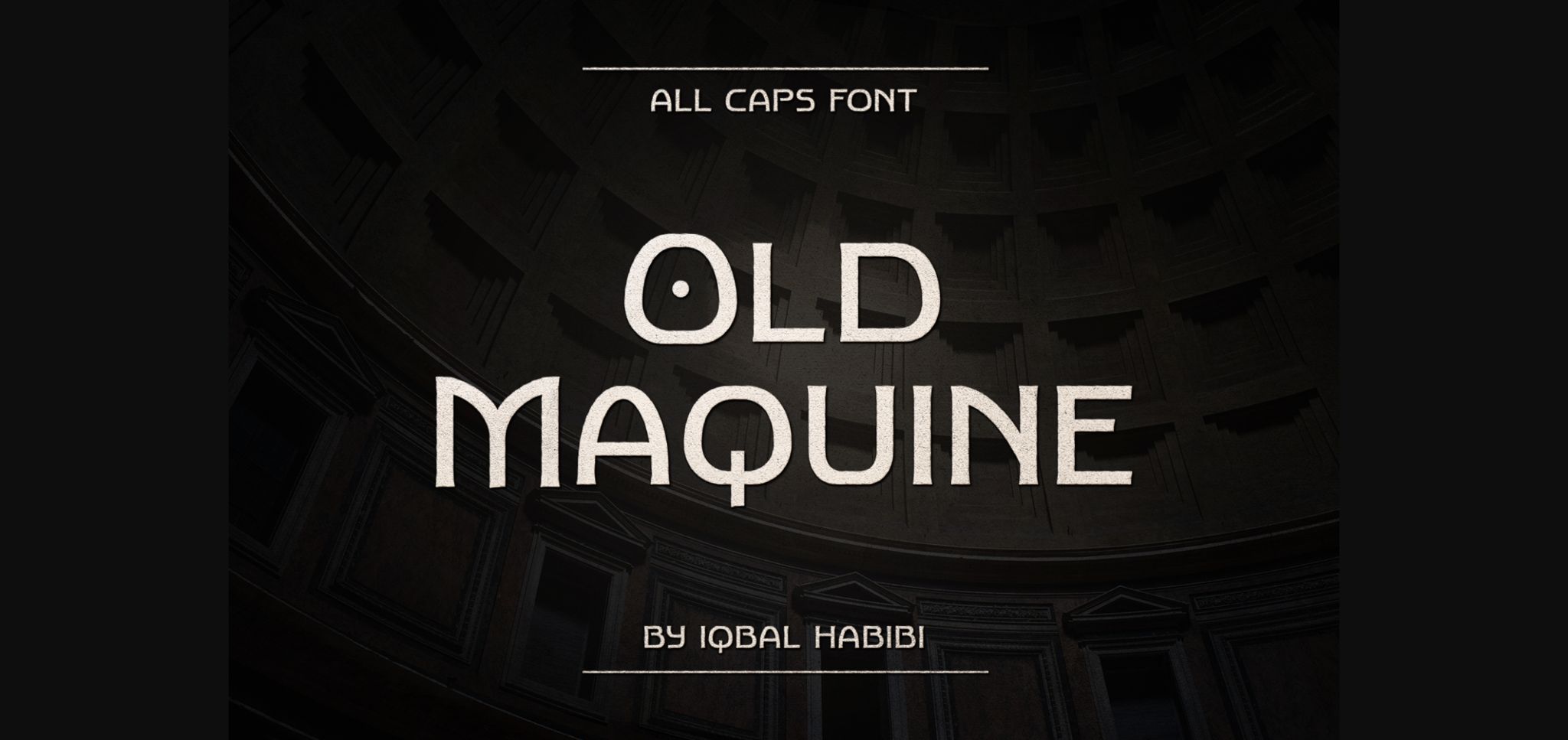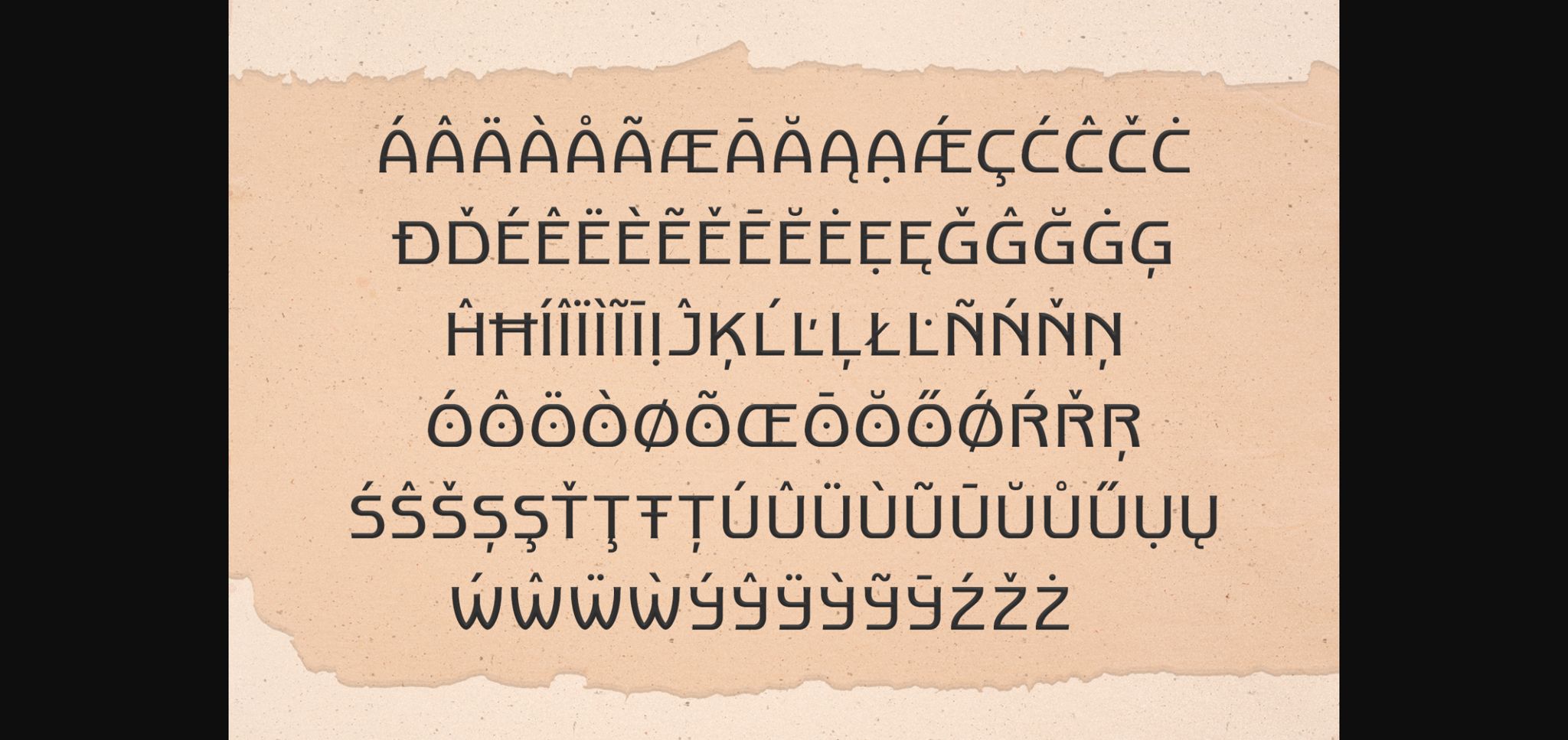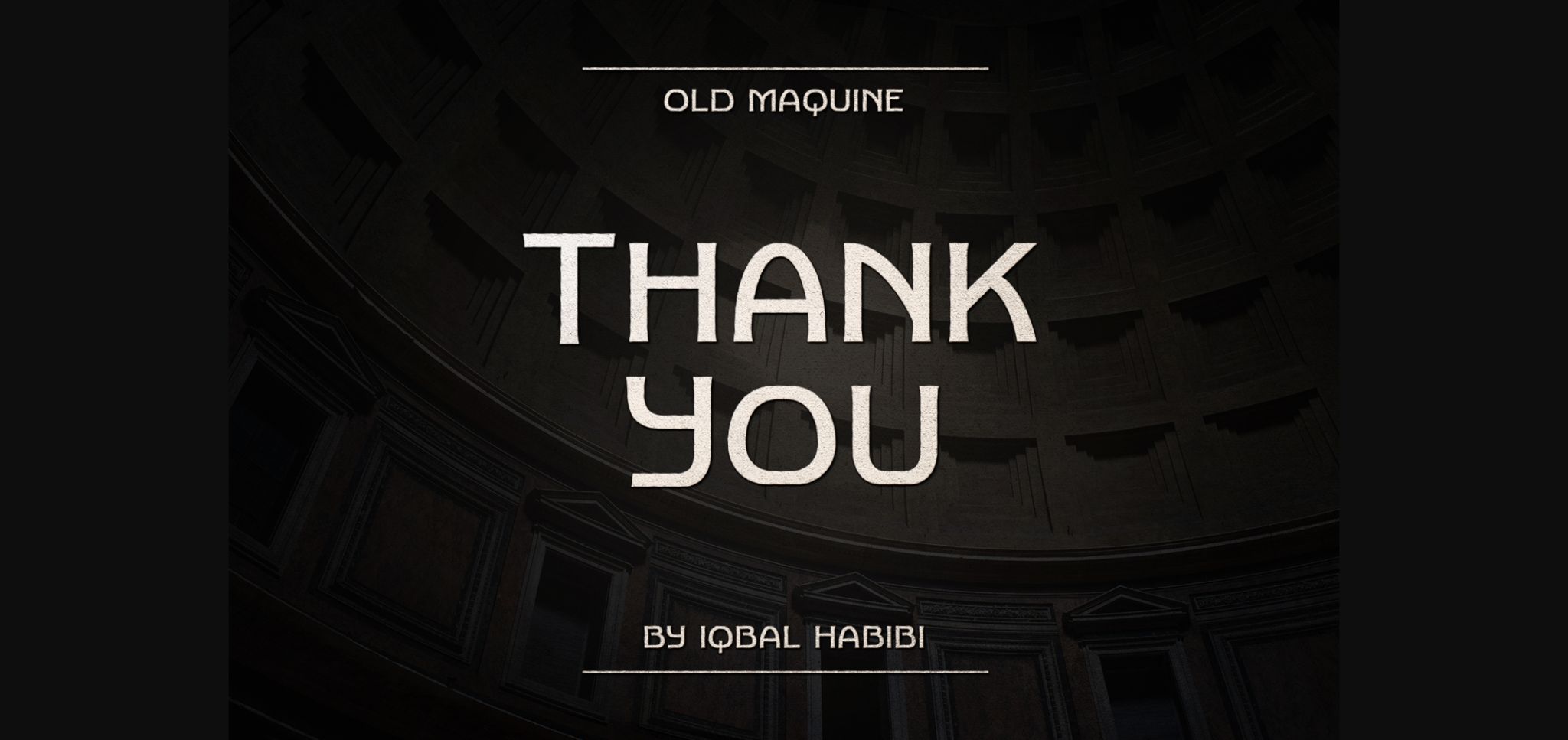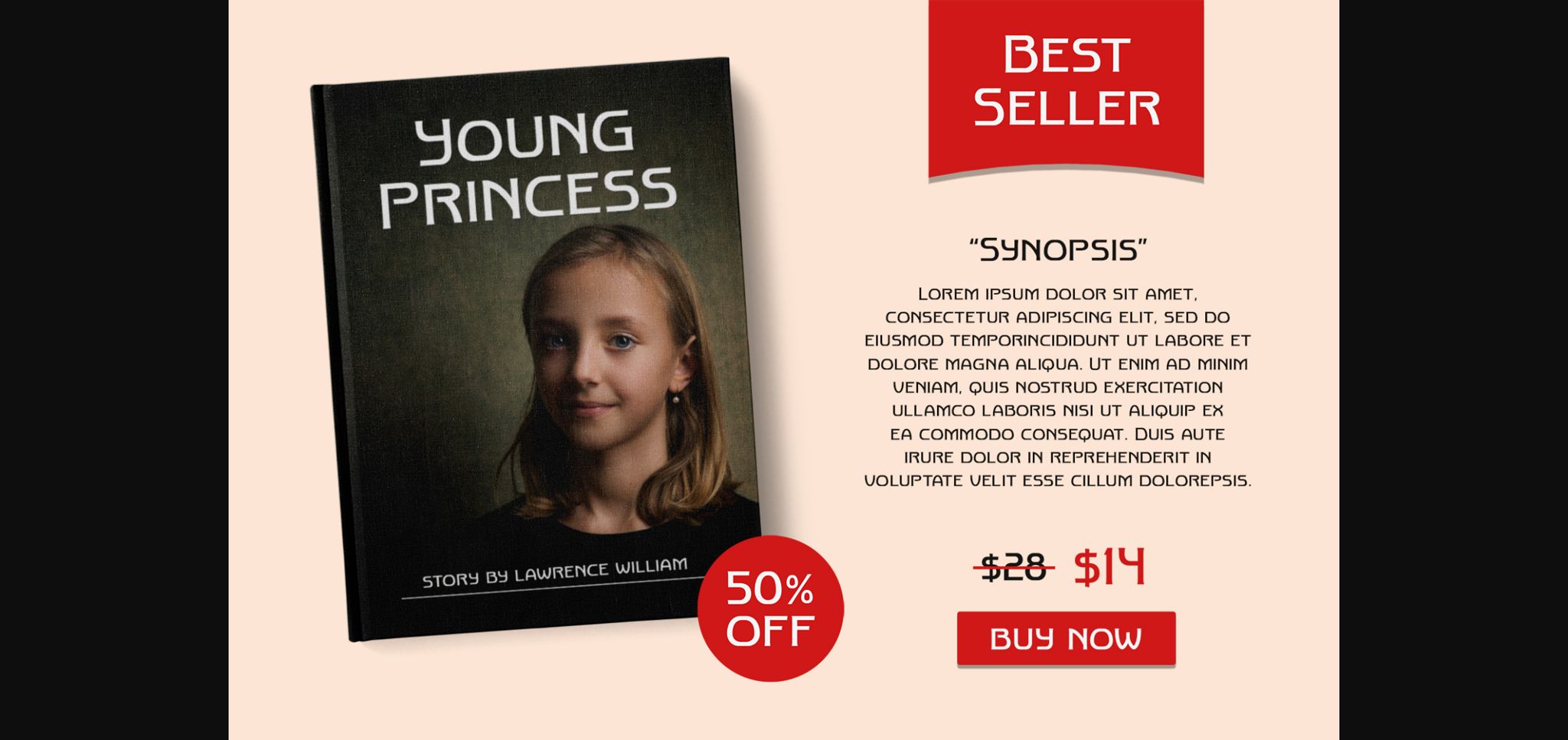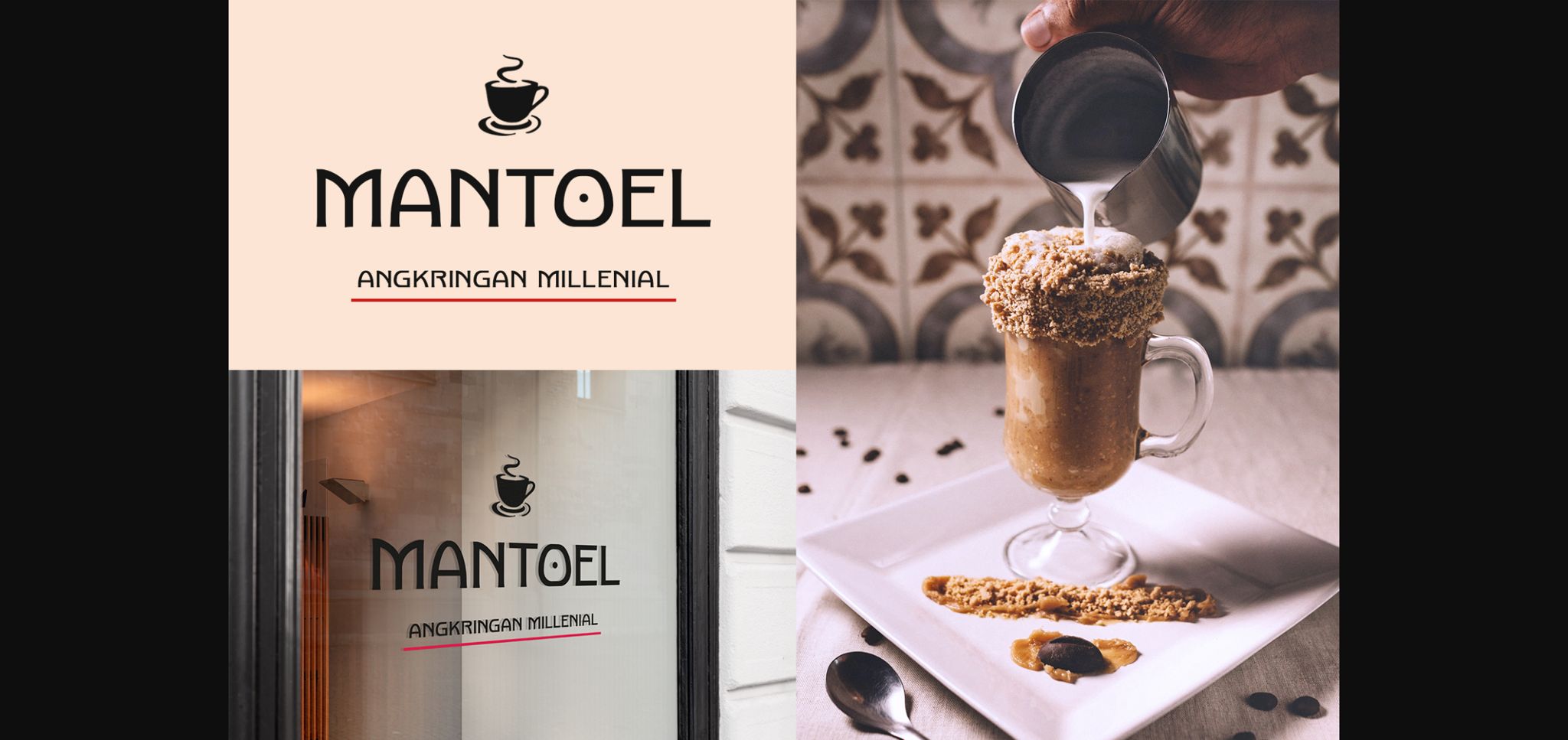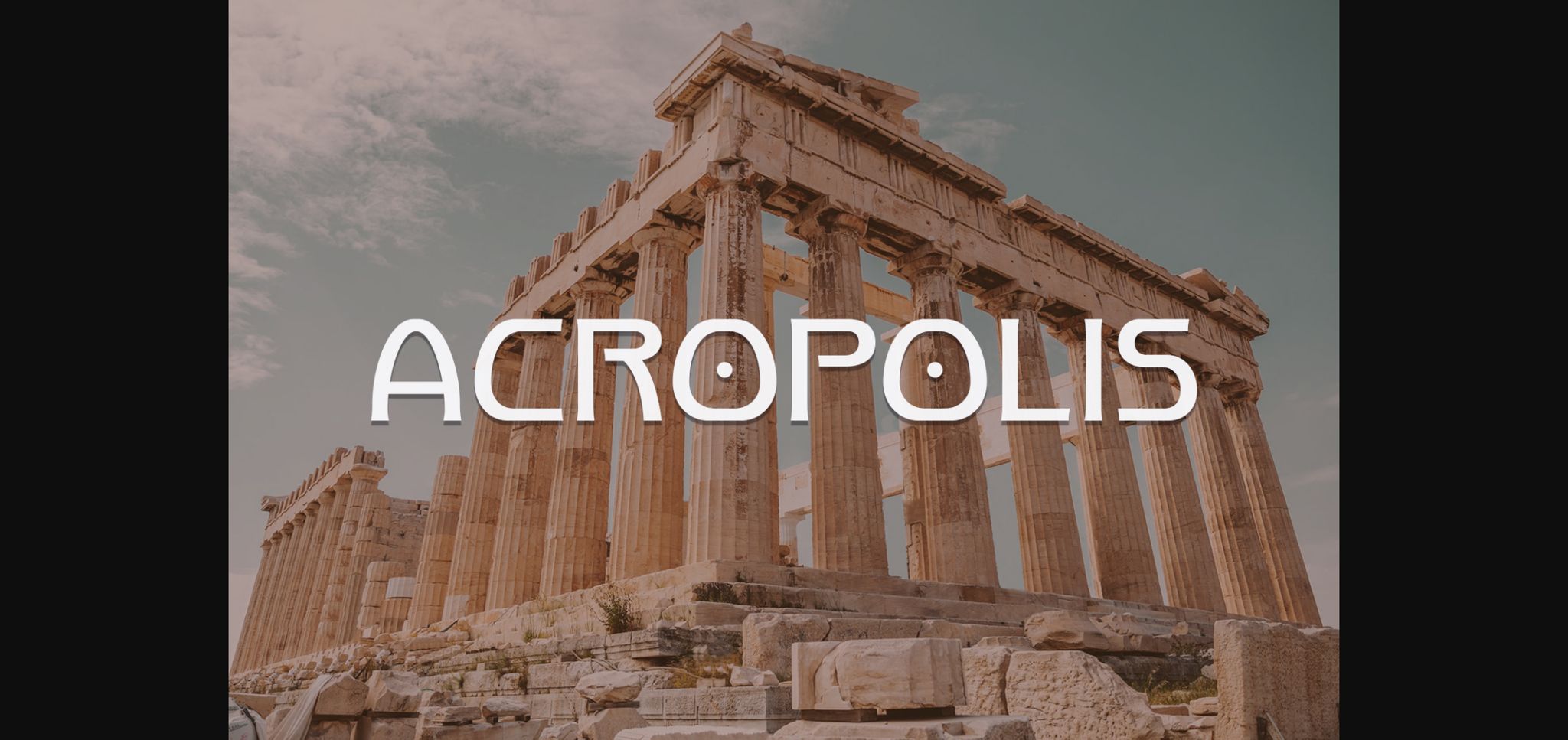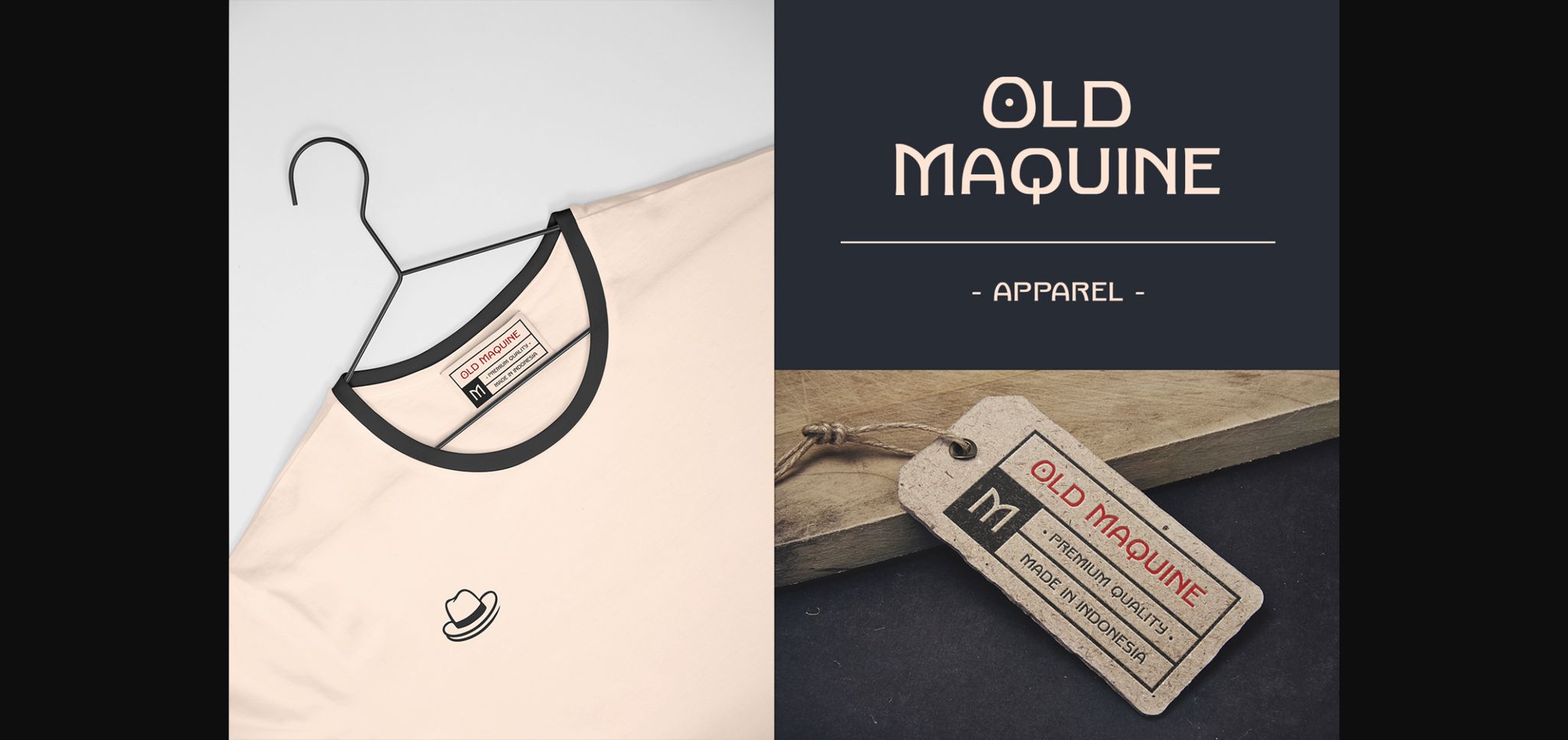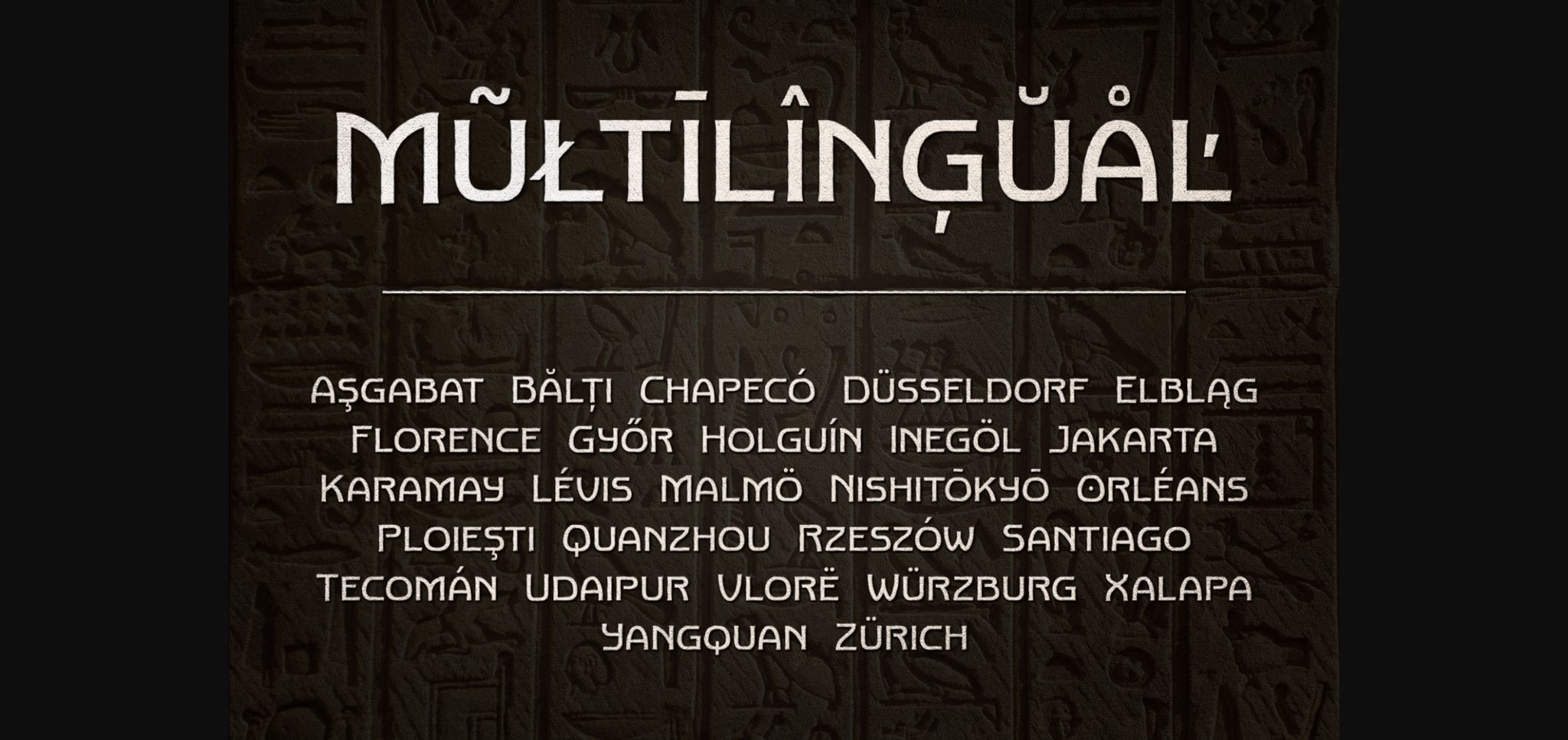
Old Maquine Font
About Old Maquine Font
Old Maquine is a fresh and modern sans serif font. Simple and easy to use, this font will be very beautiful if you mix it with your various craft designs.